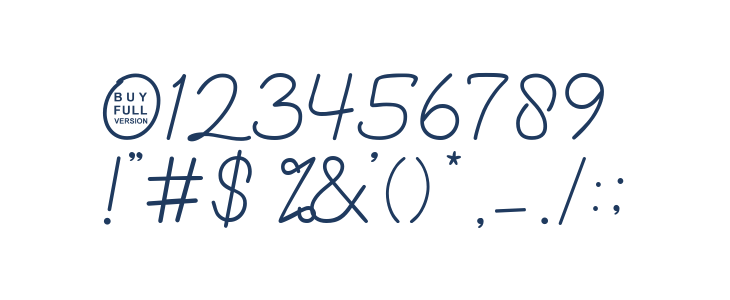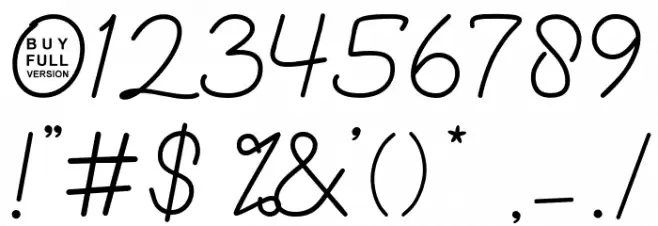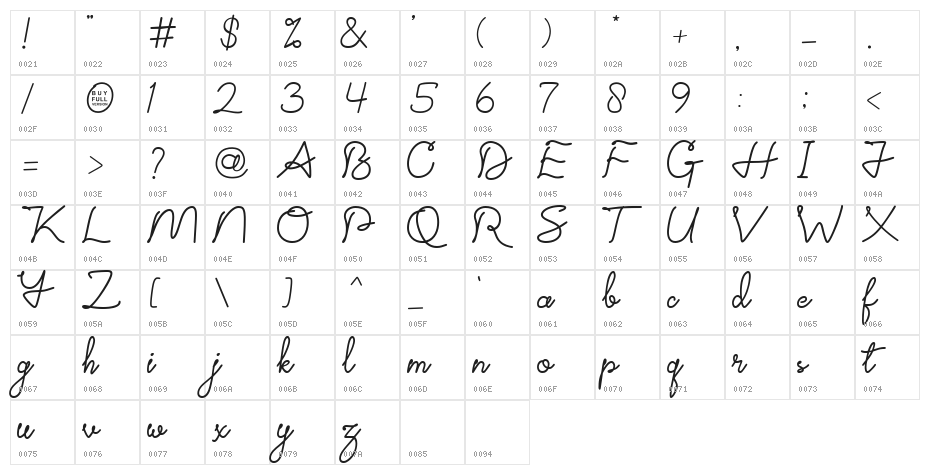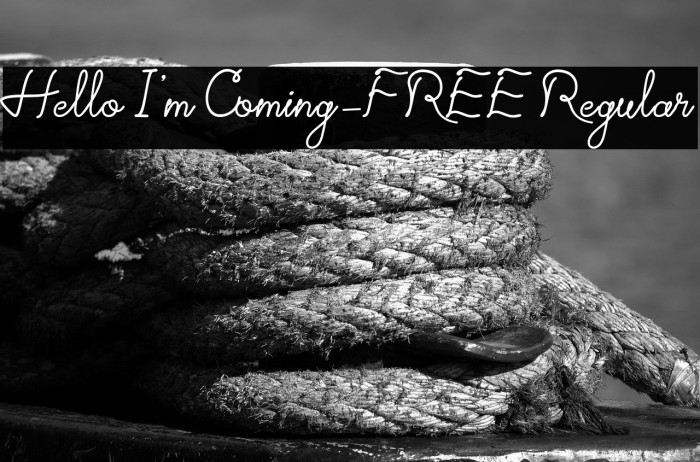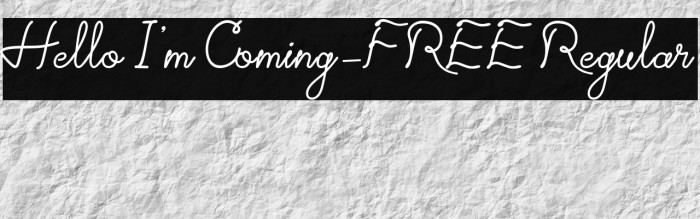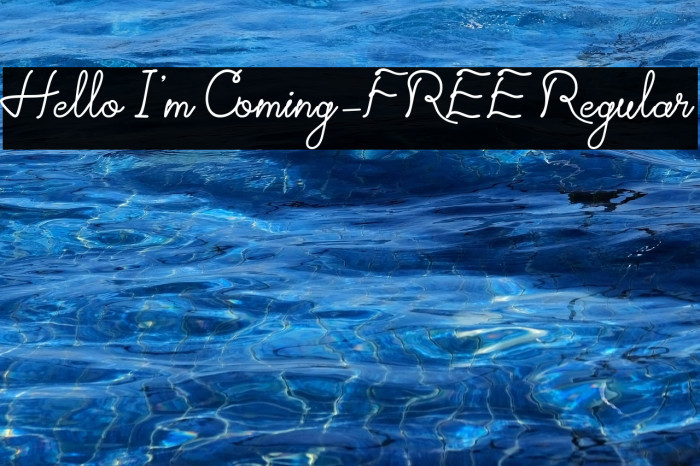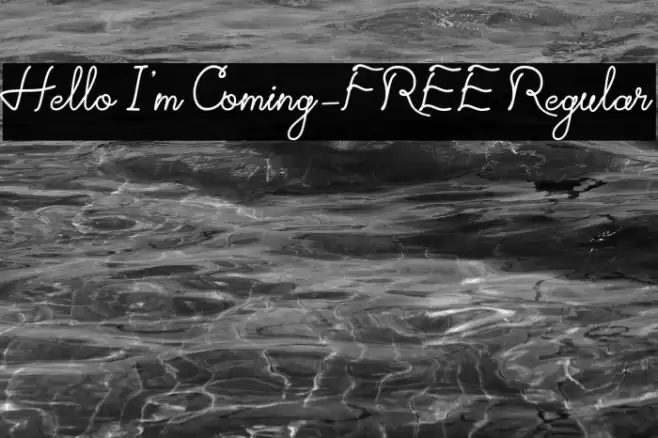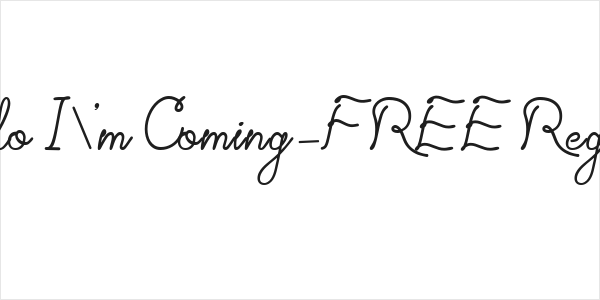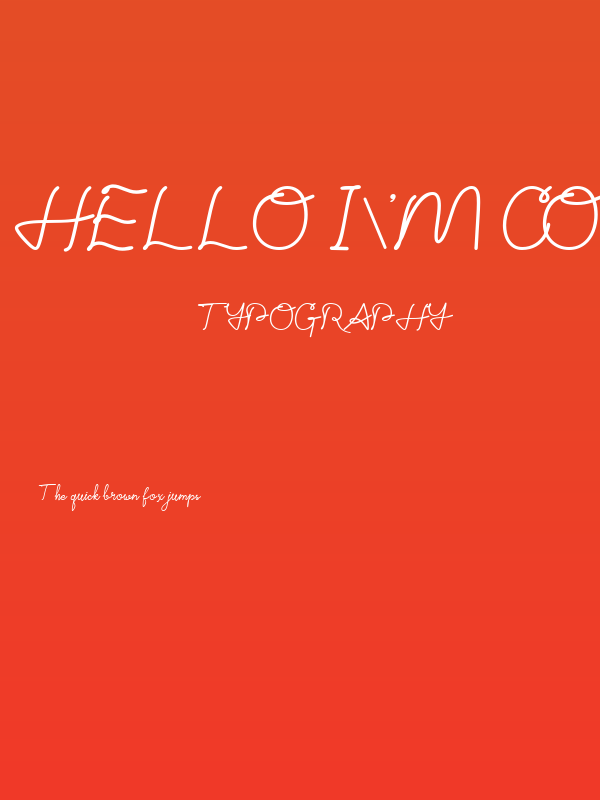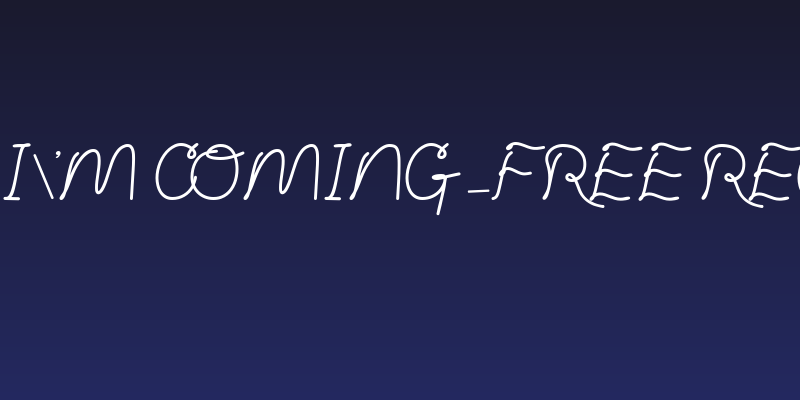
Hello I'm Coming-FREE Regular Font
Hello I'm Coming-FREE Regular Description
This font features a playful and whimsical script style with a handwritten appearance. The uppercase letters are slightly more structured, maintaining a casual elegance, while the lowercase letters exhibit a flowing, cursive design that adds a personal touch. The numerals and special characters are consistent with the overall style, offering a cohesive look. The strokes are smooth and fluid, providing a sense of movement and dynamism. This font is ideal for projects that require a personal, friendly, and approachable feel, such as invitations, greeting cards, or branding for creative businesses.
| Overall Style | Playful, Whimsical, Personal |
| Use Case | Invitations, Greeting cards, Creative branding |
| Proposed Projects | Ideal for invitations, greeting cards, creative branding, and personal projects. |